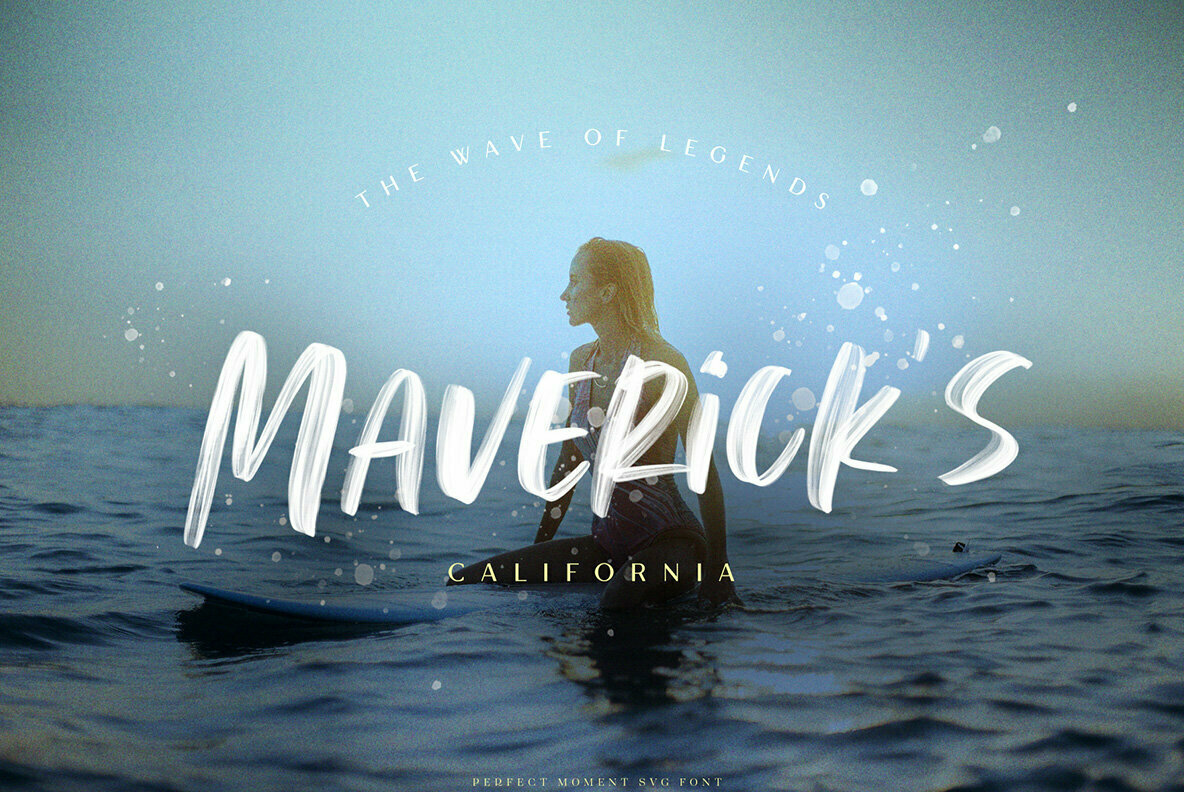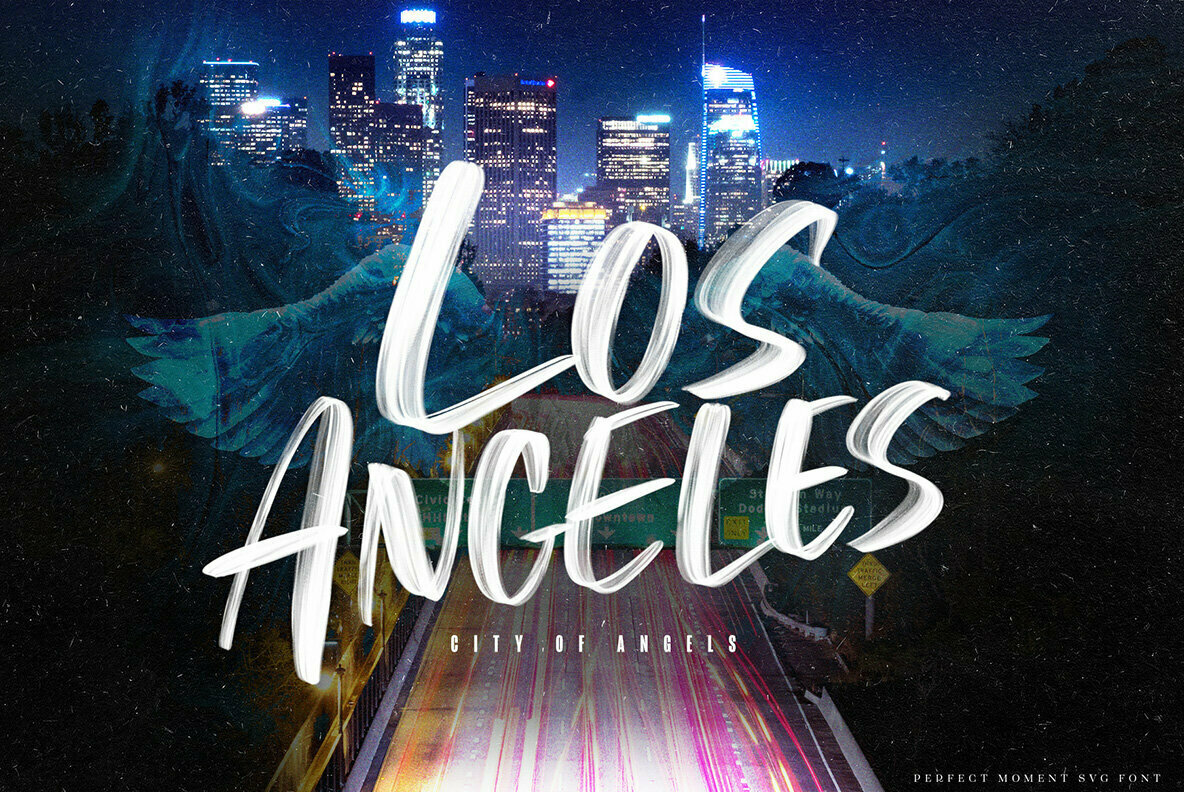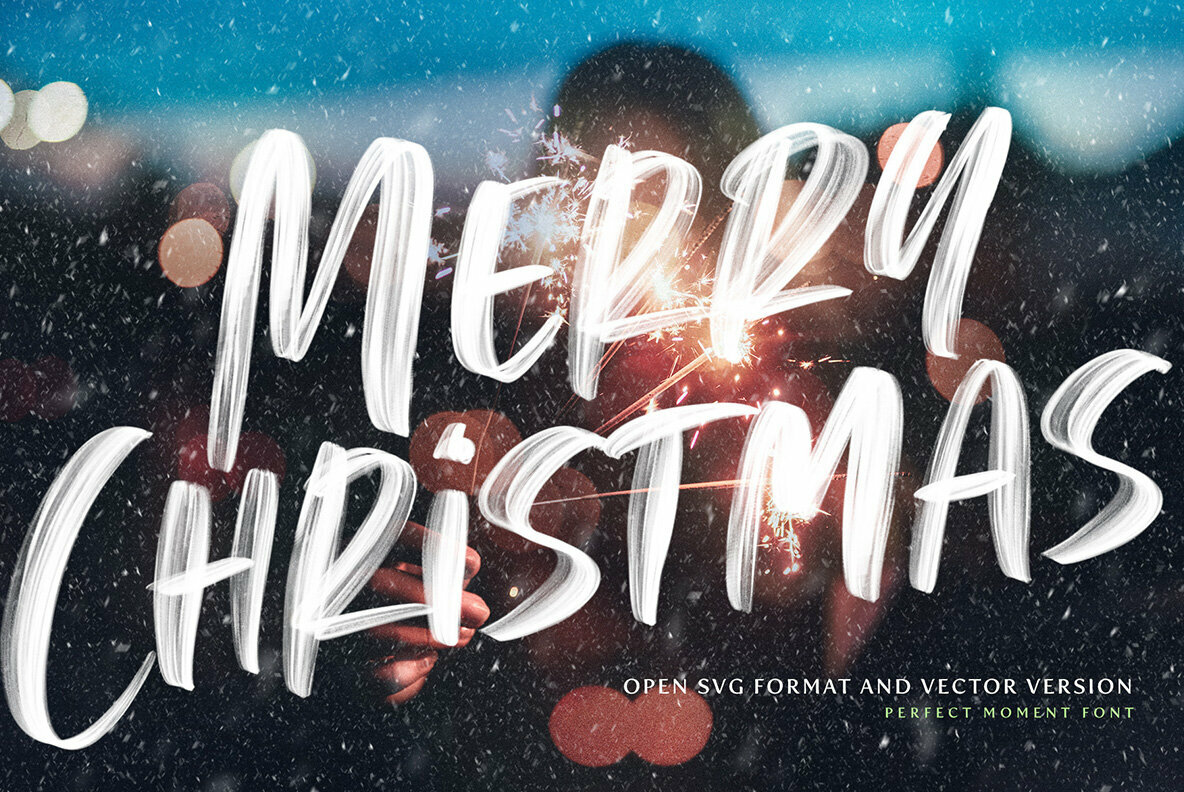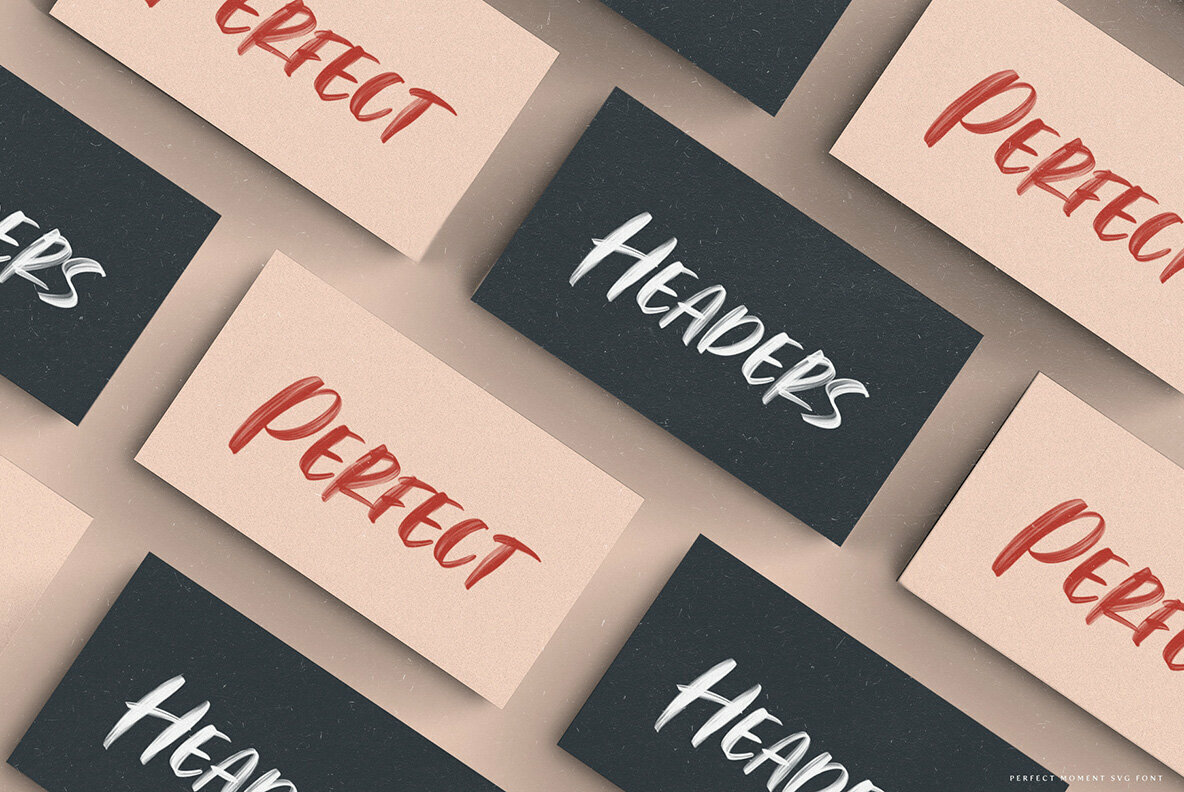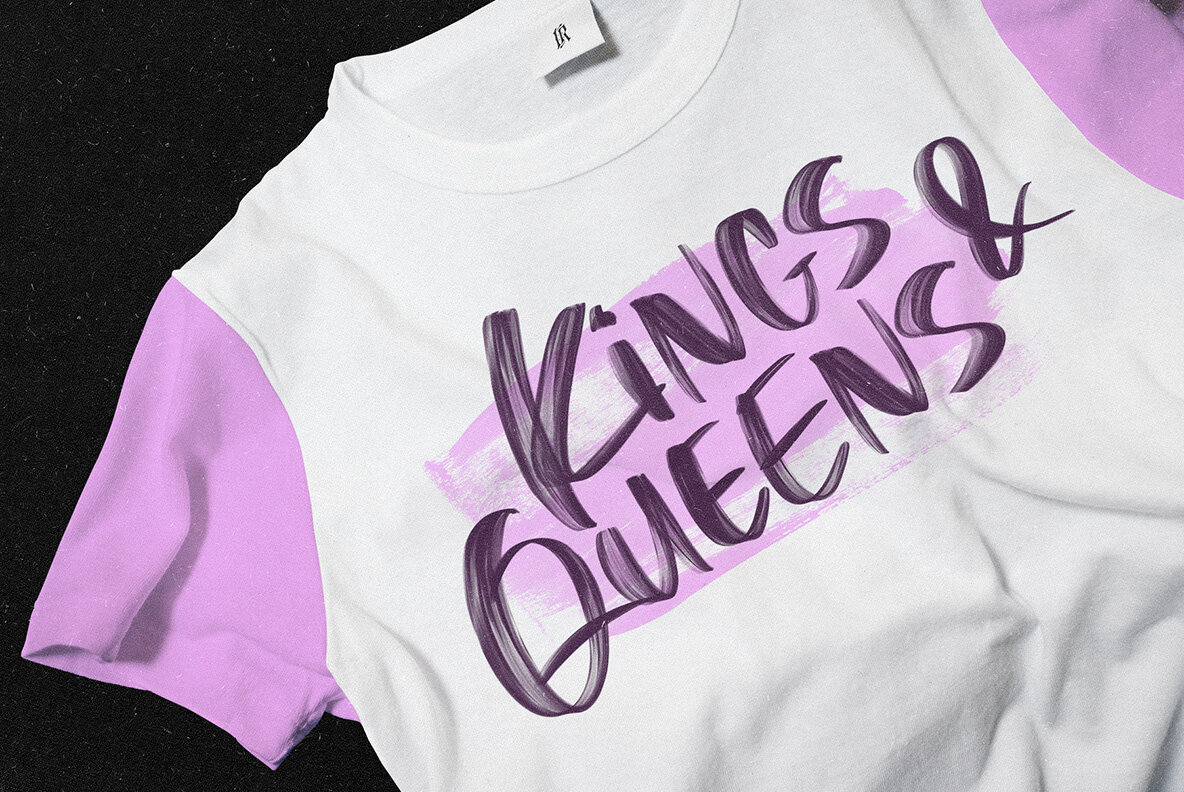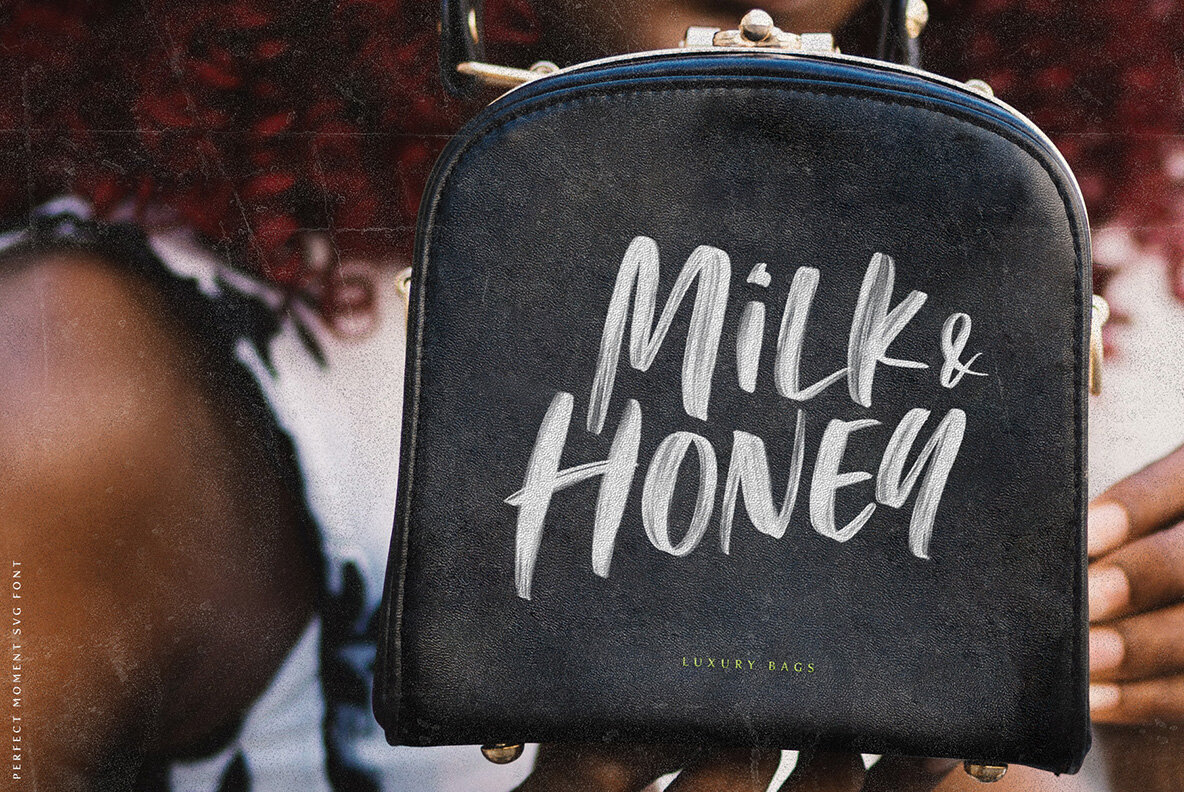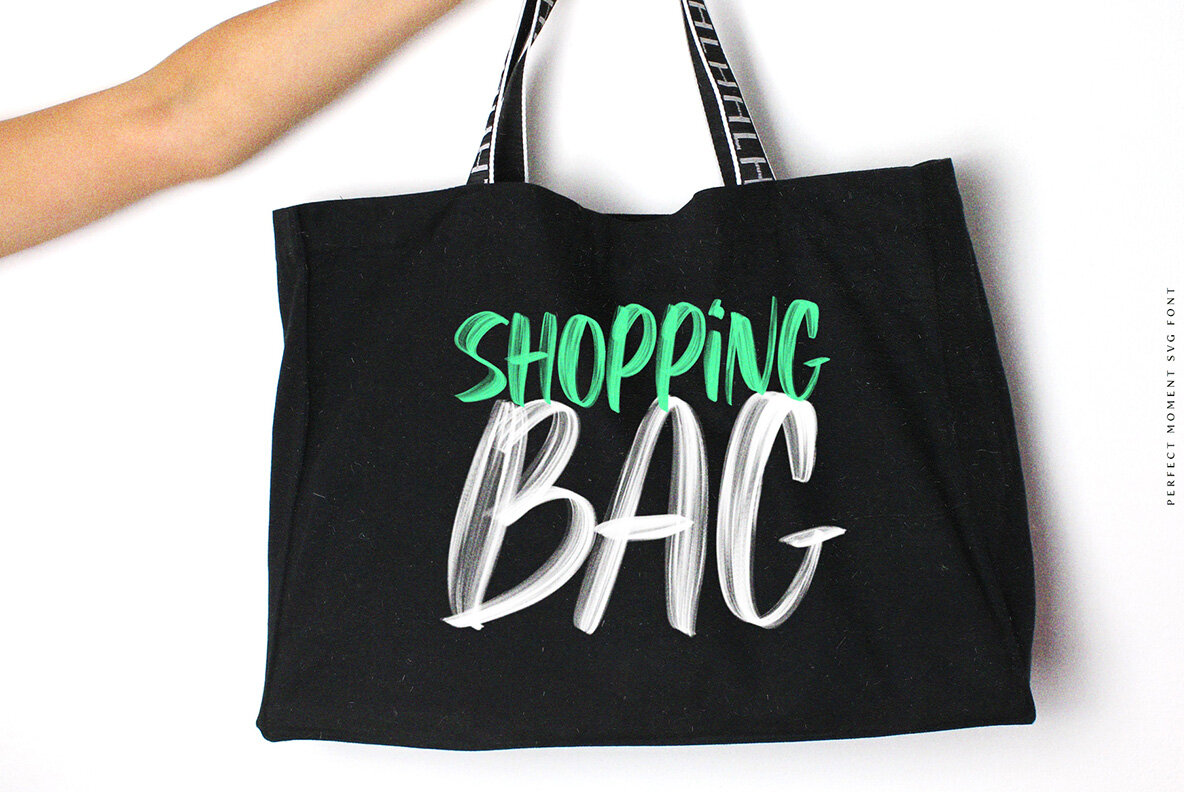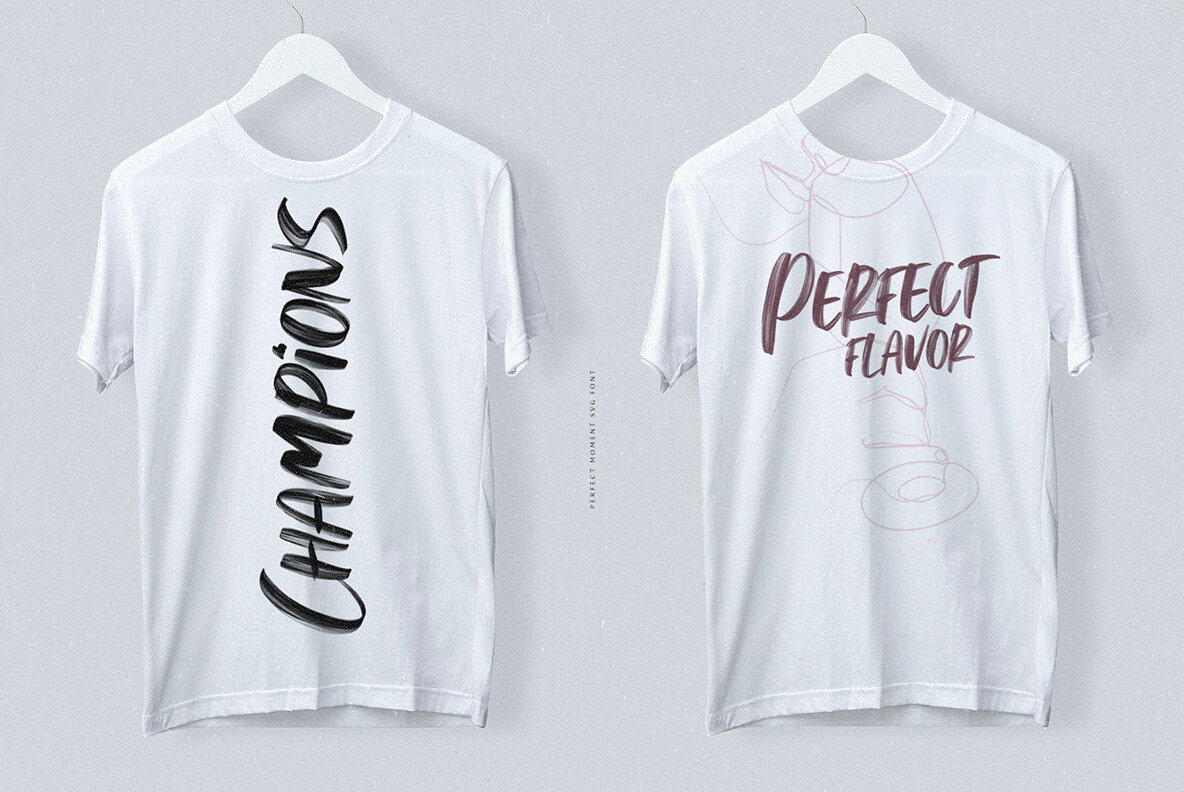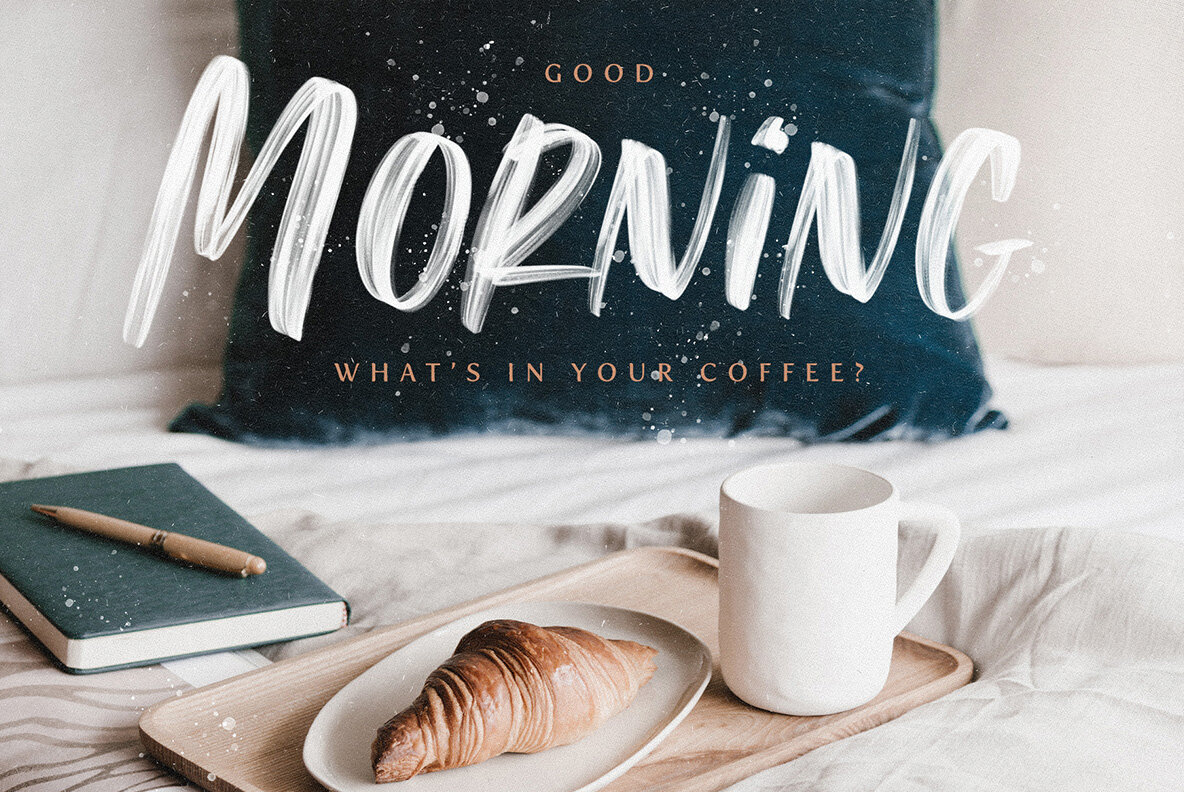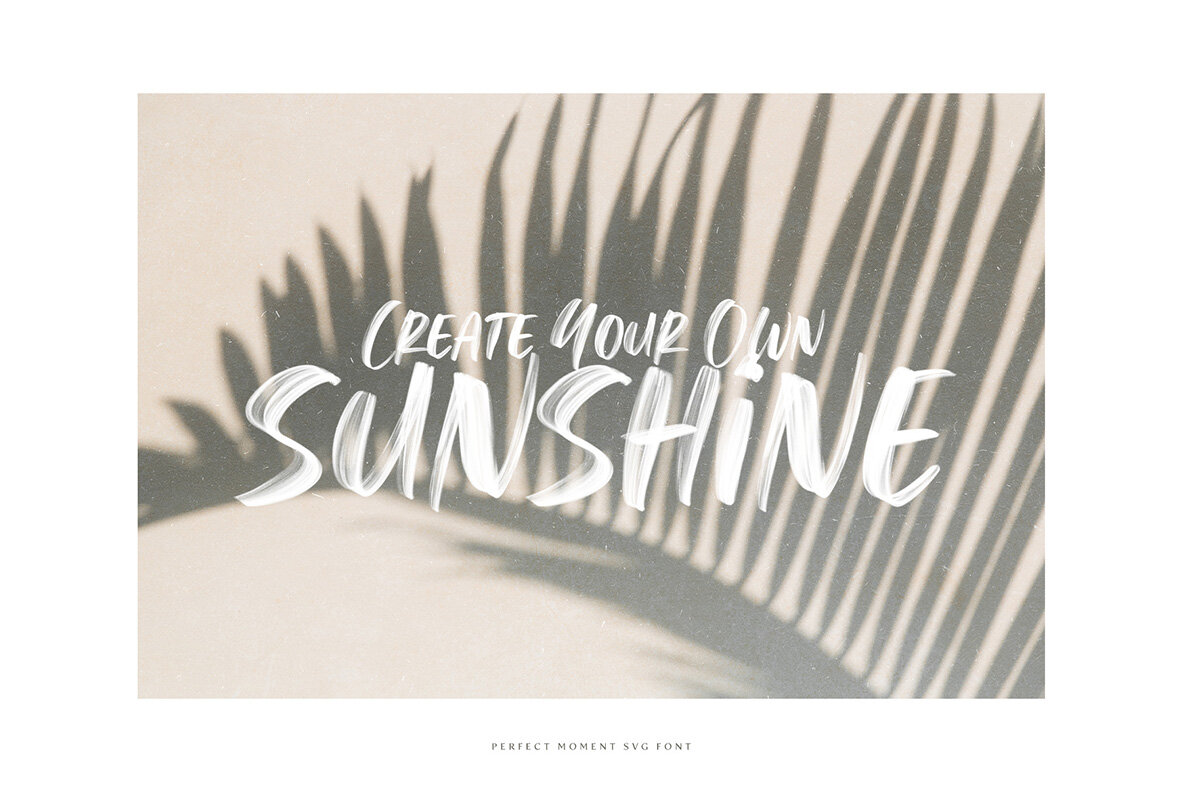
Perfect Moment SVG Font
Perfect Moment preserves all the high definition detail of the original handwritten letters. Using OpenType-SVG technology it truly looks realistic.